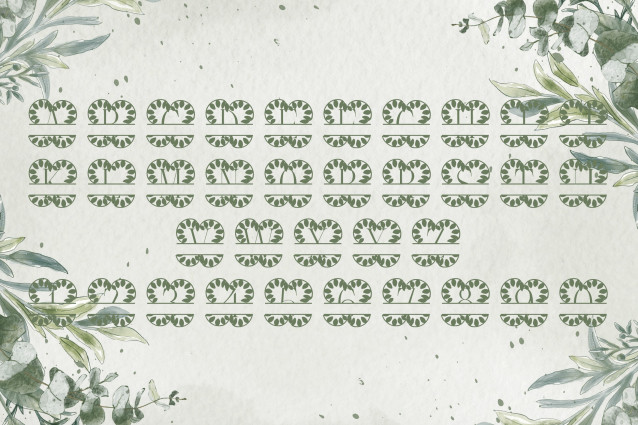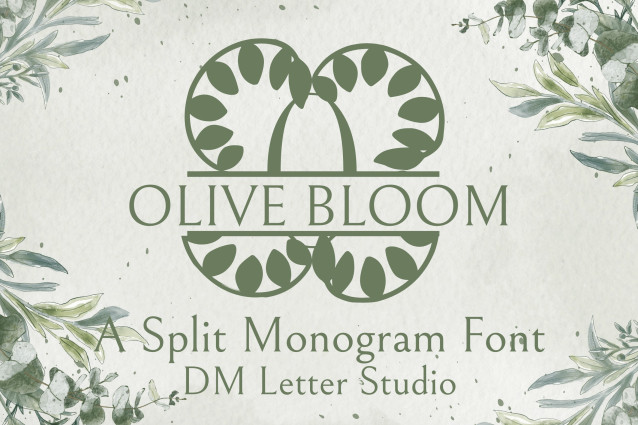
Olive Bloom Split Monogram Font
Olive Bloom Split Monogram is an elegant serif font featuring a clean split-letter design paired with graceful olive branch illustrations. Each uppercase letter is divided with space for names or custom text, while delicate olive motifs add a timeless botanical touch. Ideal for personalized wedding pieces, Mediterranean-themed branding, and sophisticated Cricut designs.